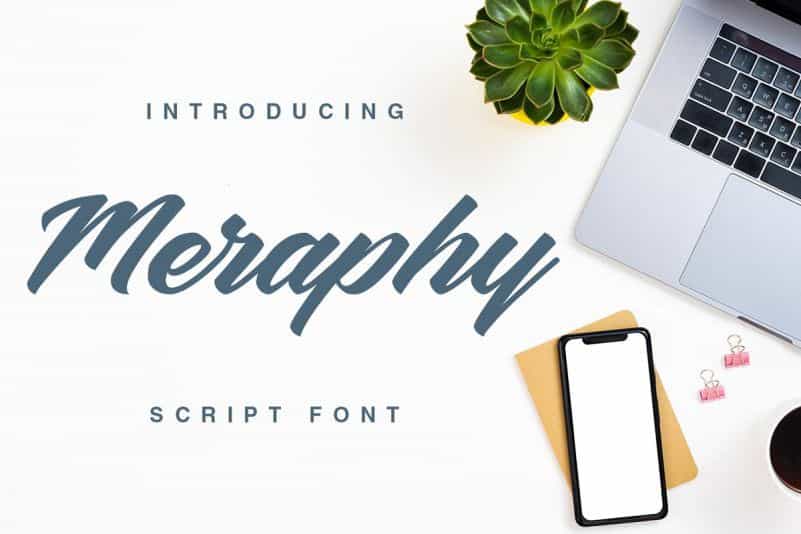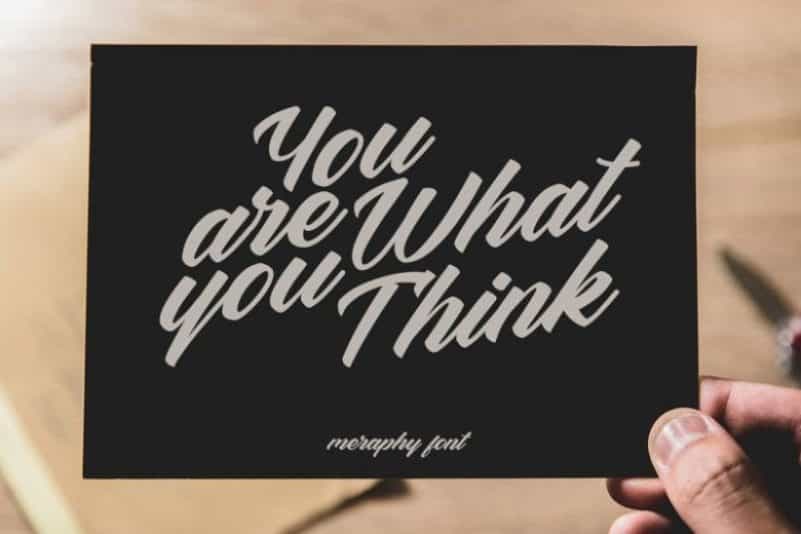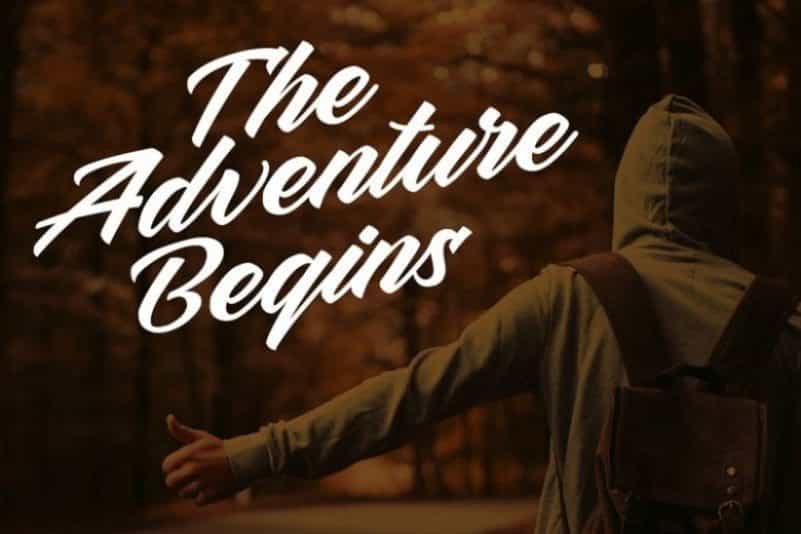
Discover Meraphy Script Font, part of the Brush Calligraphy collection—a versatile and unique font perfect for adding a personal touch to your projects. Download it for free and enjoy crafting designs with style, from invitations to social media posts. This font is available exclusively for personal use, giving you the freedom to create without limits. Unlock your creativity with Meraphy Script Font today!
Introducing Meraphy Font. This is seen in the script style. A collection of multicolored bright letters for inscriptions and your design. Vector illustration. Isolated on white background. It’s suitable for branding projects, logo design, wedding designs, social media posts, advertisements, product packaging, product designs, labels, photography, watermarks, invitations and stationery among others that require handwriting style.